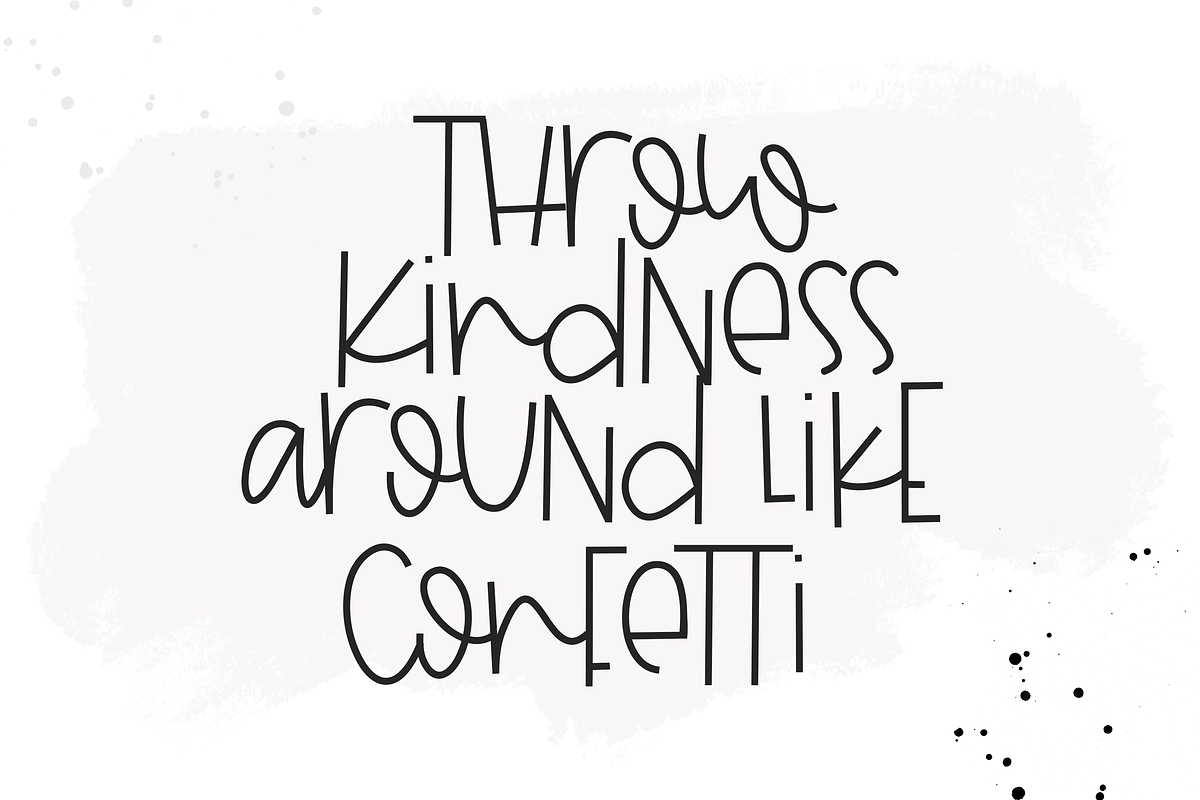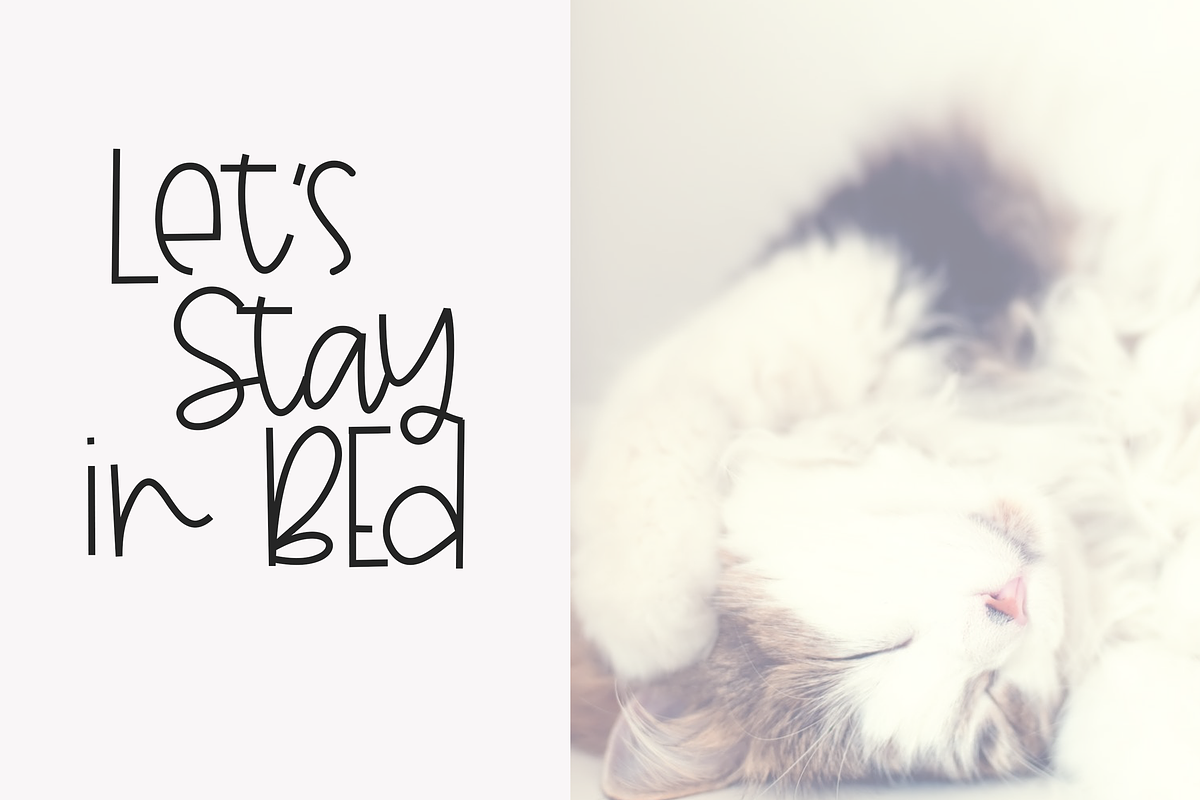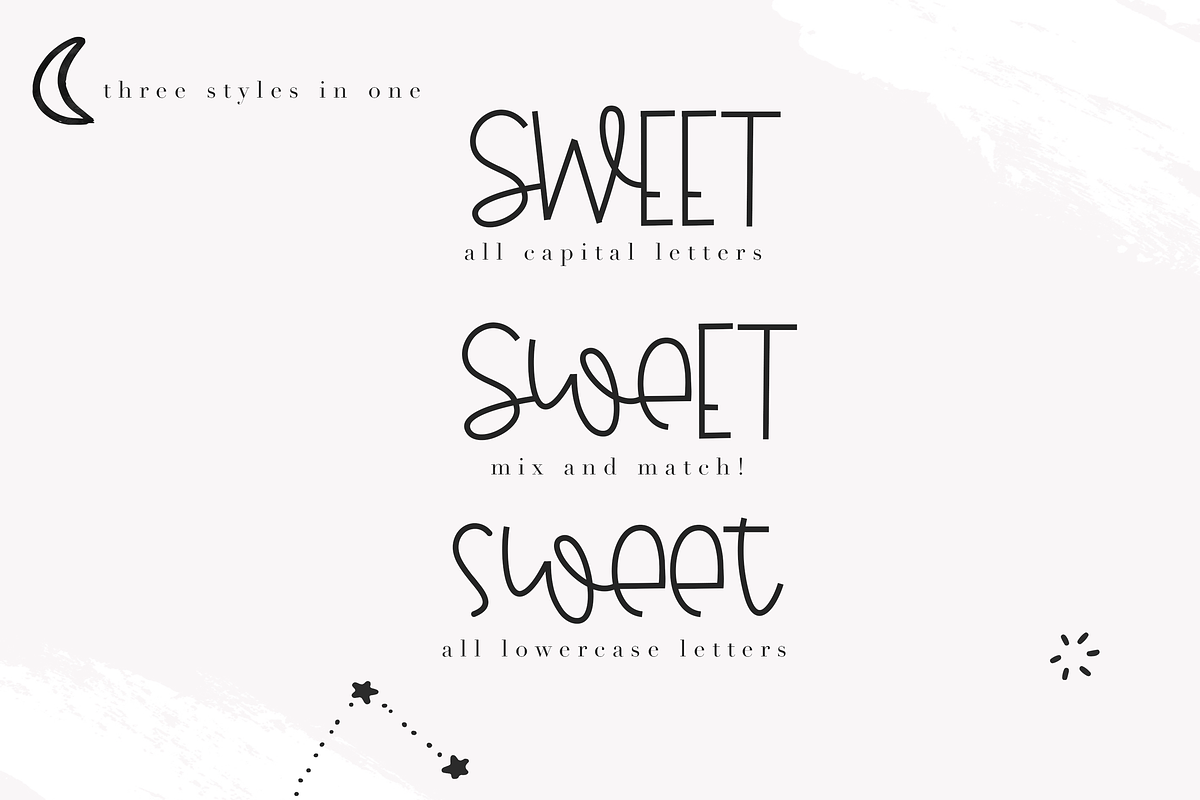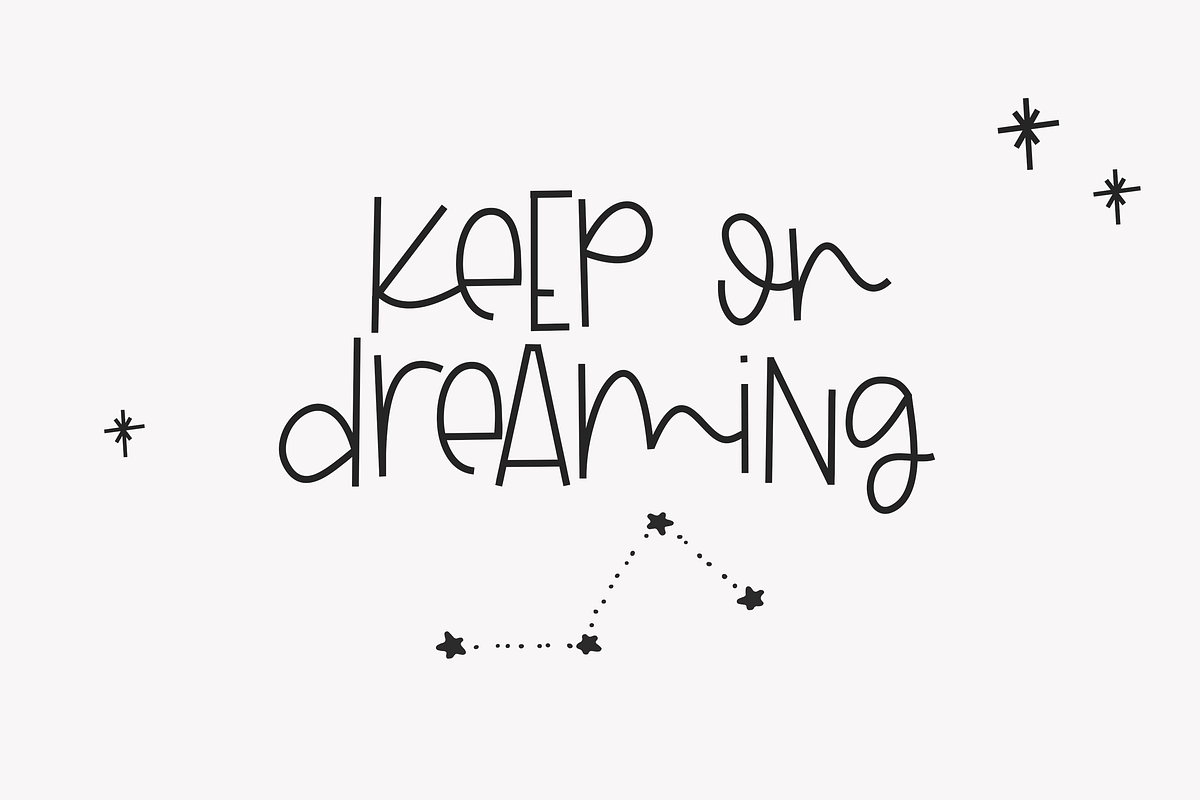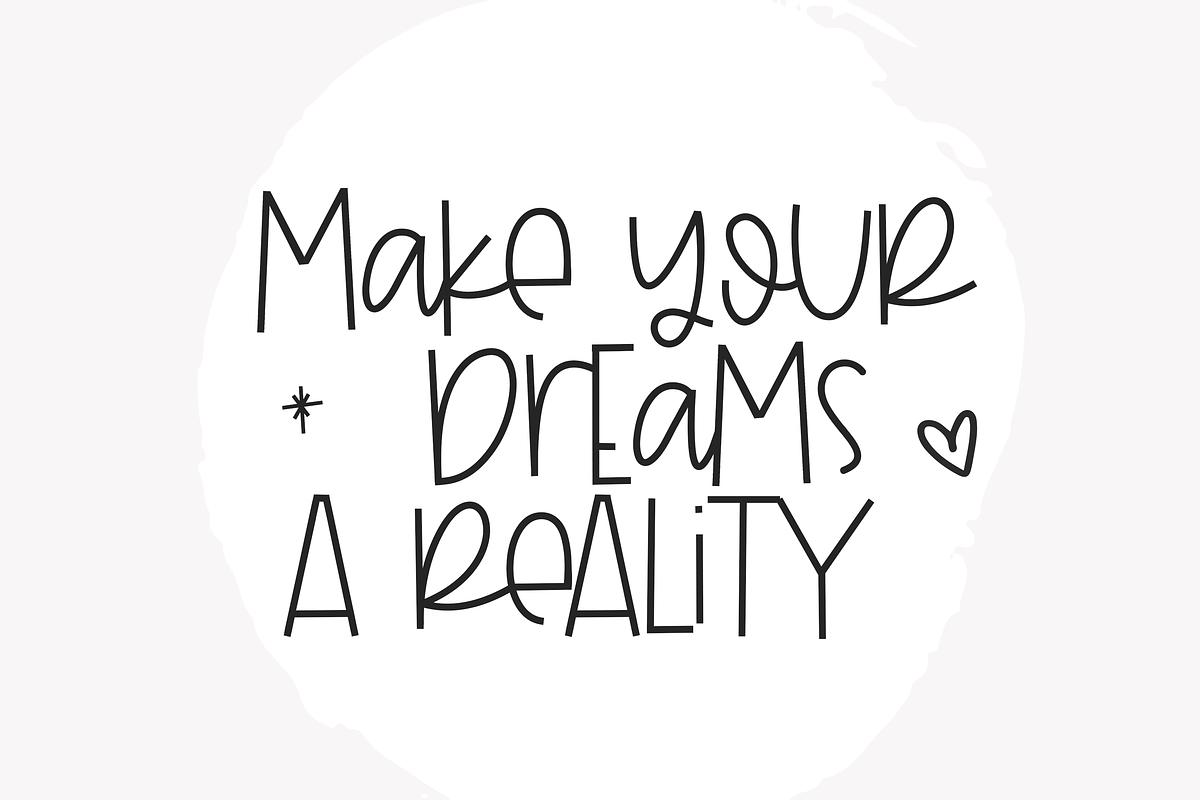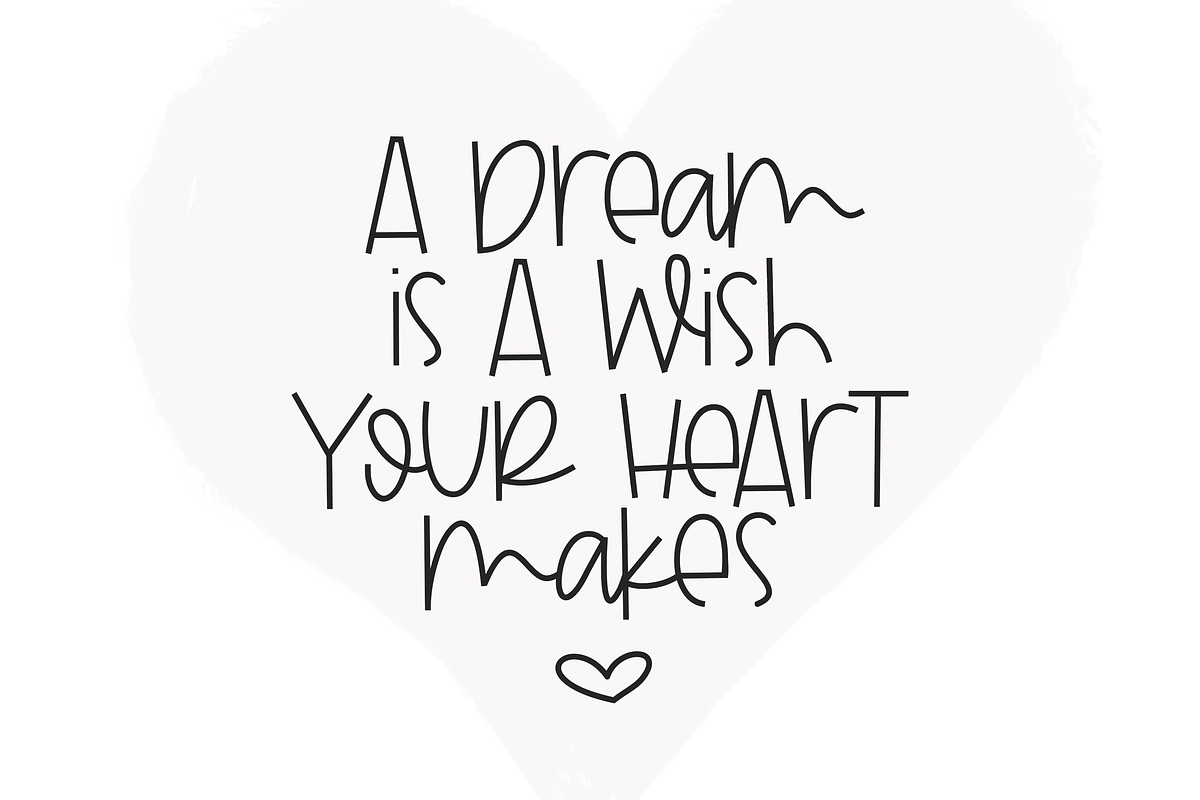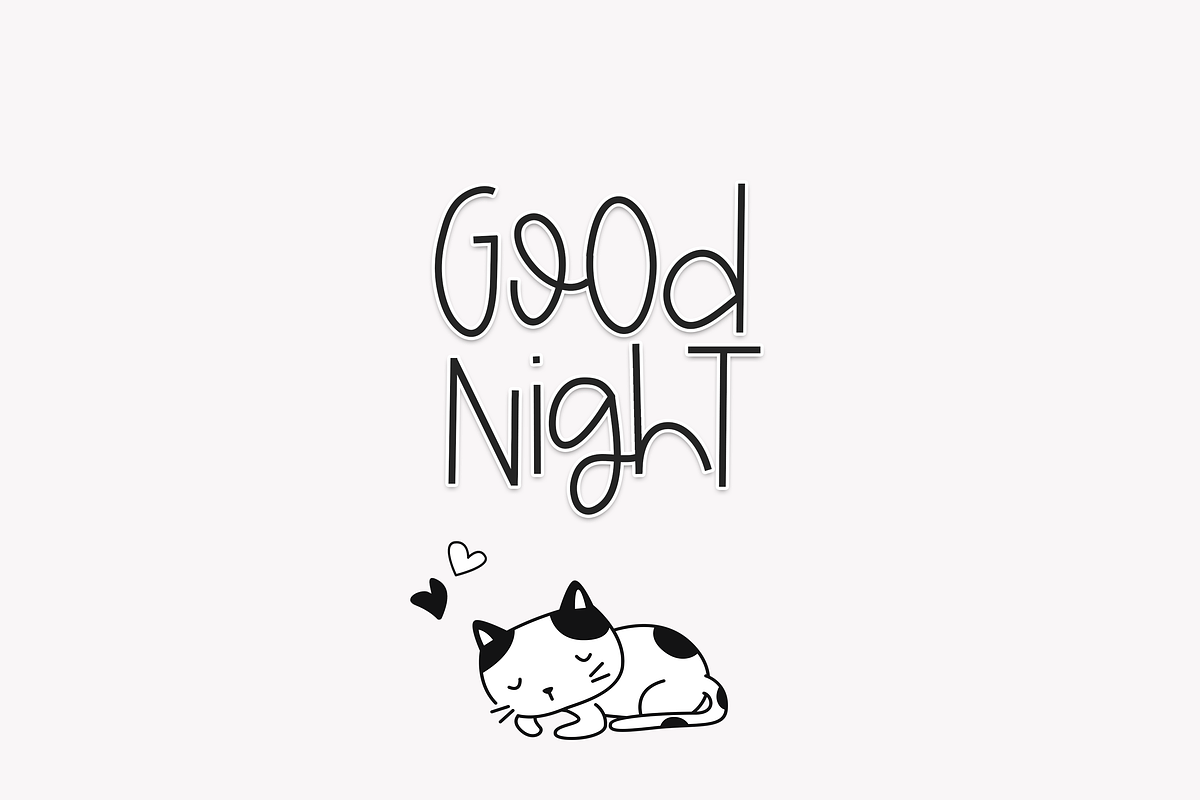
Sweet Dreamer - Fun Handwritten Font
Sweet Dreamer is a fun, mismatched font. It has a unique and quirky look to it!
You can get three styles in one with this font:
Type in all capital letters
Type in all lowercase letters
Type with a mix of both
This font is perfect for quotes, headings, blogs, logos, invitations and more!
This font does include accent characters